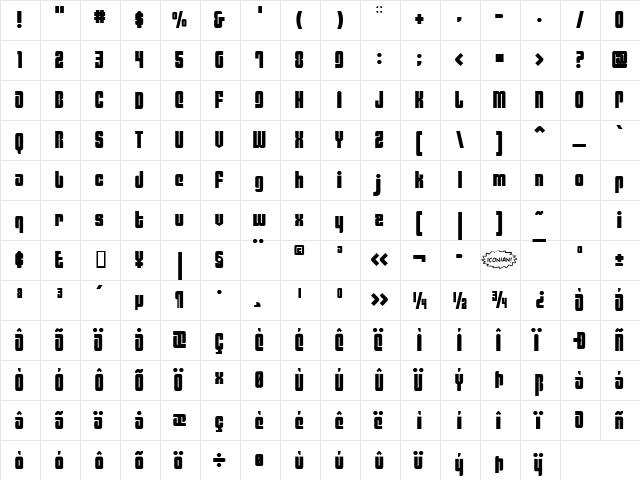
Philadelphia Regular
Design Context for Philadelphia Typeface
Philadelphia is a composed and adaptable typeface that performs quietly and consistently across a wide range of design contexts.